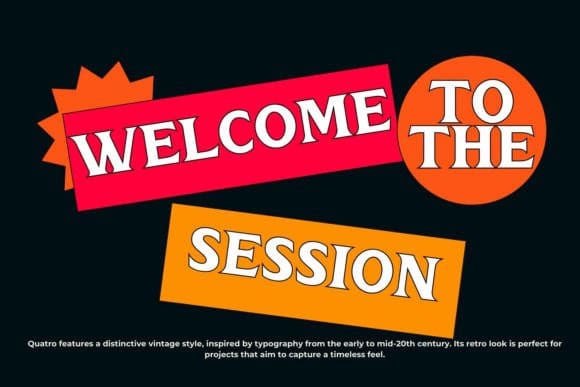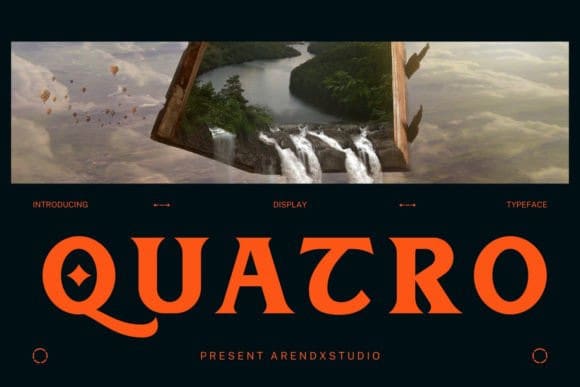
Quatro Font
Quatro Font is a vintage display font that brings a touch of nostalgia and elegance to any design project. Characterized by its unique blend of classic and contemporary elements, Quatro is designed to stand out and make a statement. This font is ideal for those looking to evoke a sense of vintage charm and sophistication in their work.
As a display font, Quatro Font is designed to grab attention. Its bold letterforms make it an excellent choice for headlines, posters, and signage.
While ideal for vintage-themed designs, Quatro is versatile enough to be used in a variety of contexts, including branding, packaging, logos, and editorial design.
Despite its decorative elements, Quatro maintains high legibility, making it suitable for both large and small text.